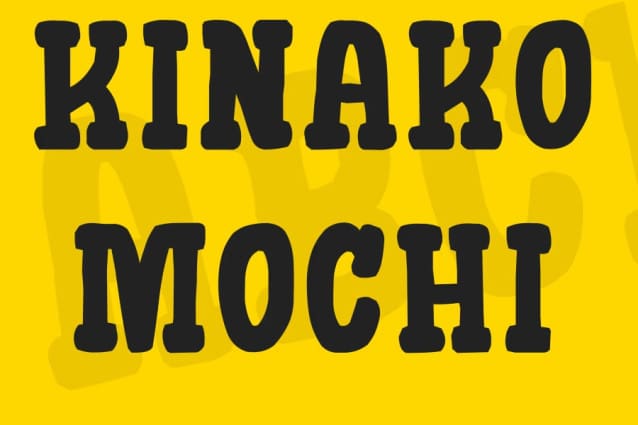
Kinako Mochi Font, suitable for any design needs : logo, branding, modern advertising design, logos, poster quote, book / cover Title, editorial design, website / blog, card, t-shirts.
Kinako Mochi Font